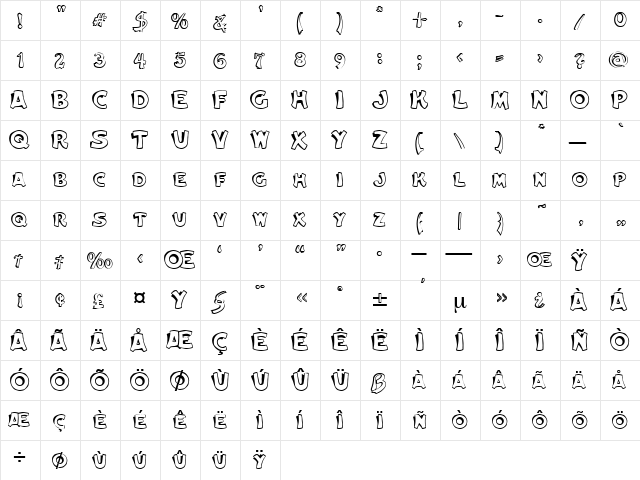
Lupine Regular
Design Context for Lupine Typeface
Lupine is a composed and adaptable typeface that performs quietly and consistently across a wide range of design contexts.